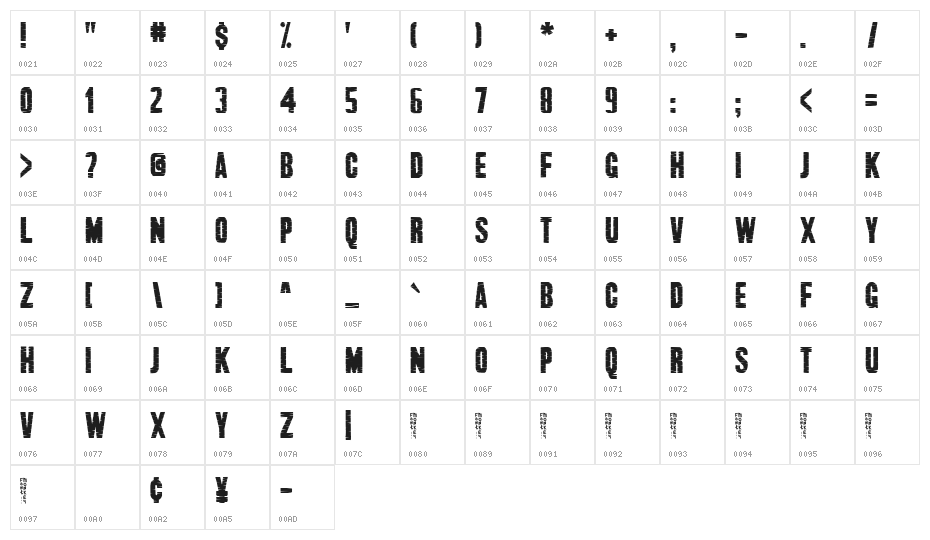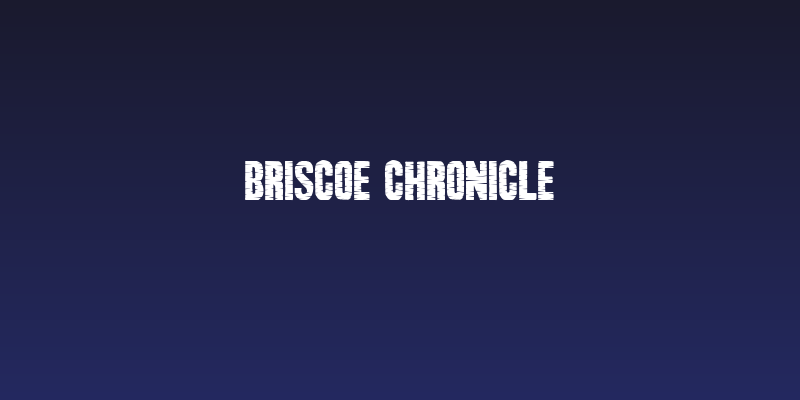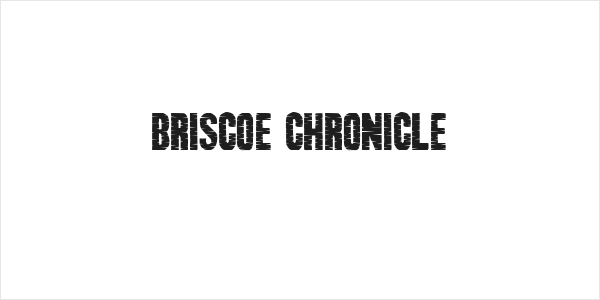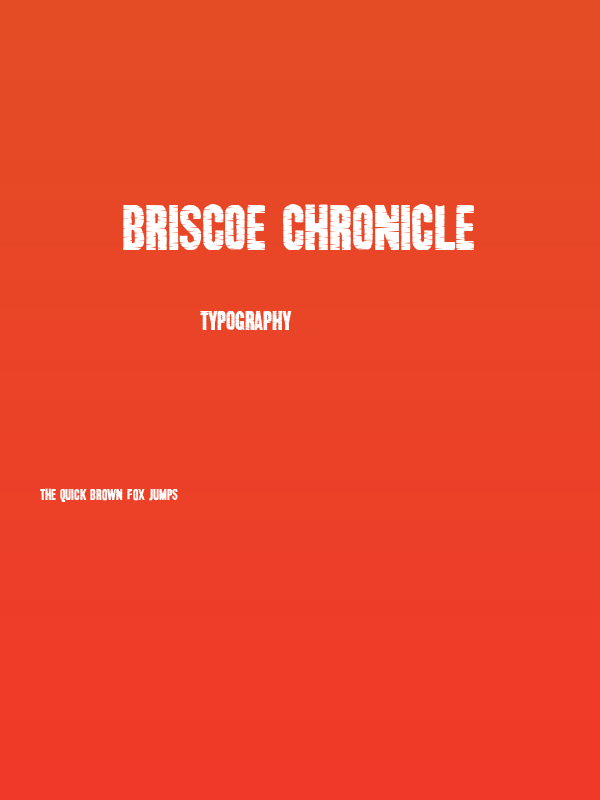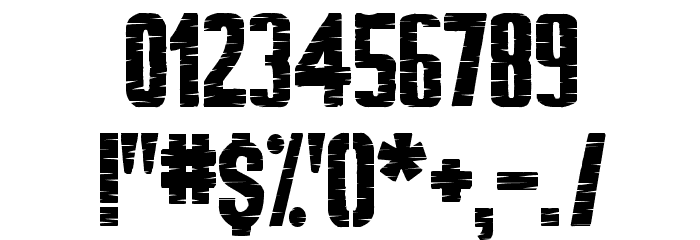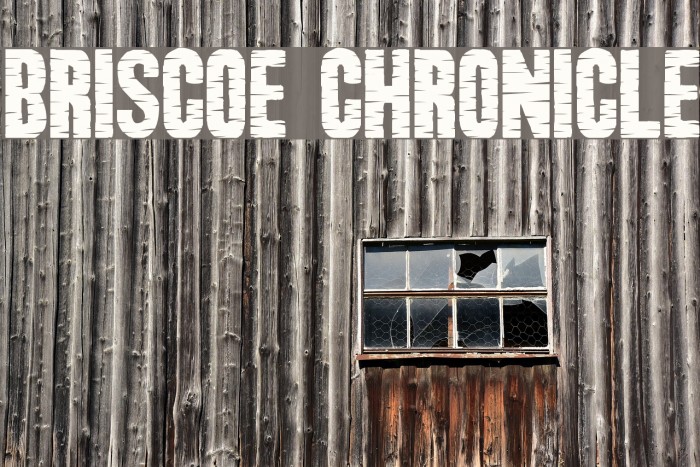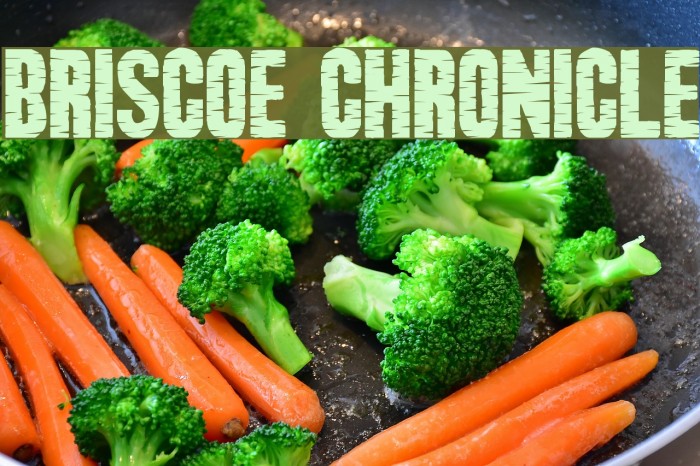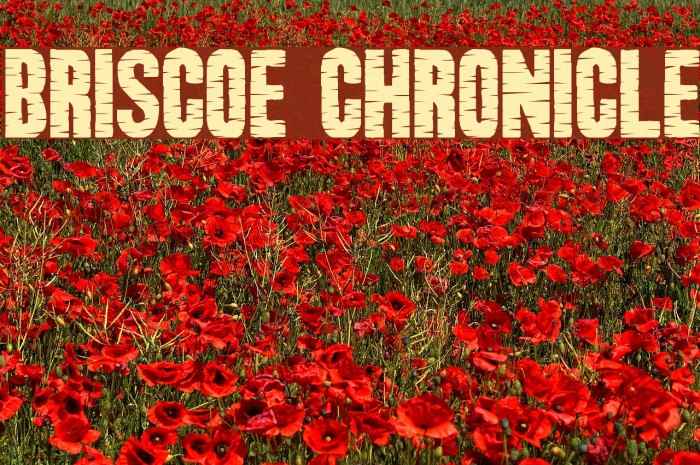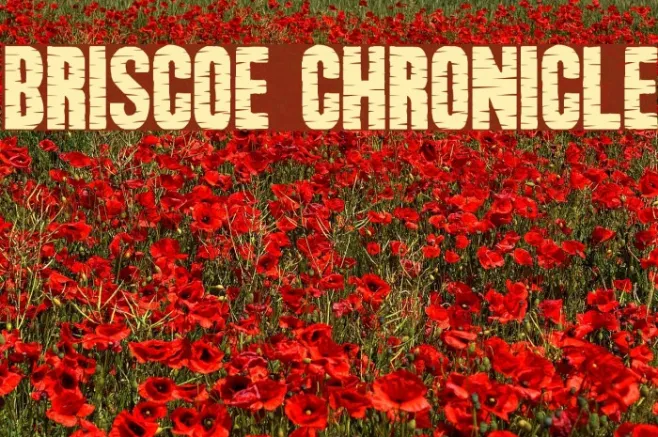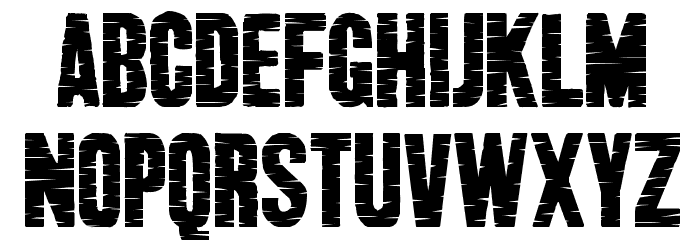
Briscoe Chronicle Font
Briscoe Chronicle Description
This font features a bold, distressed style with a textured appearance that gives it a rugged, worn look. The characters are uppercase and have a consistent height, with a slightly condensed width that enhances their impact. The rough edges and irregular strokes create a sense of movement and energy, making it ideal for designs that require a gritty or vintage aesthetic. The numbers and special characters maintain the same distressed quality, ensuring a cohesive look across all elements. This font is perfect for projects that need a bold statement or an edgy, urban feel.
| Overall Style | Vintage, Edgy |
| Proposed Projects | Ideal for posters, album covers, branding for edgy or vintage-themed products, and any design requiring a bold, impactful statement. |